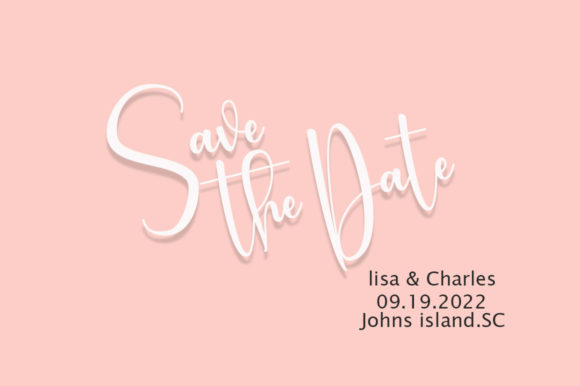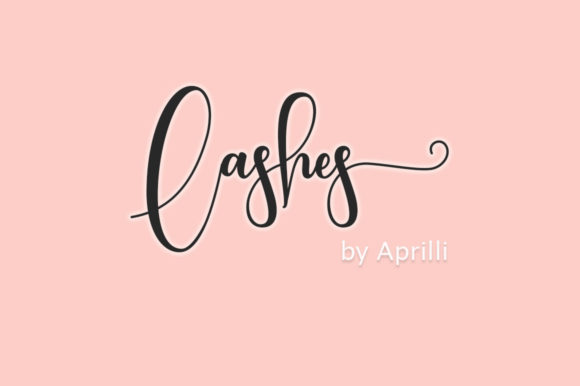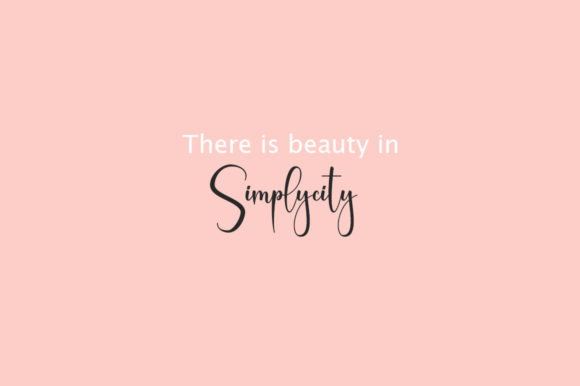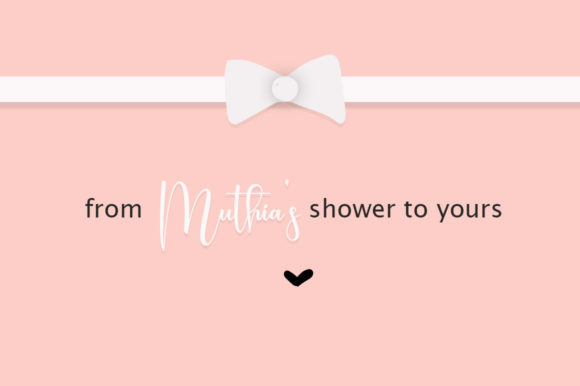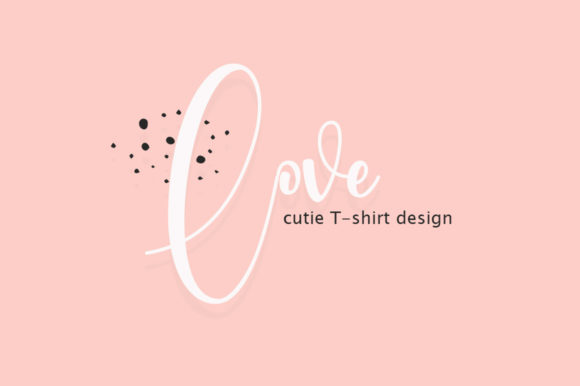
Introduction to Katty Patty Font
Have you ever been working on a creative project, pouring your heart and soul into it, and then suddenly, the perfect font comes along and makes everything fall into place? That’s exactly what happened to many designers who discovered the Katty Patty Font. This beautiful, thin-lettered script font is a game-changer for any design project, from elegant invitations to whimsical illustrations.
| 📌 Product Name | Katty Patty Font |
| 👤 Author | Fillo Graphic |
With its delicate and refined look, the Katty Patty Font is a valuable addition to any designer’s toolkit. Whether you’re working on a high-end branding project or a personal creative endeavor, this font is sure to elevate your design to the next level. And the best part? It’s available for free download, making it an accessible design resource for designers of all levels.
Key Features of Katty Patty Font
- Features a unique, playful design with bold lines and rounded edges
- Perfect for use in logos, branding, and other design elements
Honest Review: Katty Patty Font
I recently stumbled upon the Katty Patty Font, and I must say, it’s a unique addition to any design project. The font is perfect for those looking for a playful, quirky vibe in their creative endeavors. ✨
One of the standout features of this font is its high-quality design. The characters are well-crafted, and the transparent background makes it easy to incorporate into any design. Whether you’re working on a free download project or a commercial design, this font is sure to impress.
Here are some key features that make the Katty Patty Font a great design resource:
- High-quality design with detailed characters
- Perfect for creative projects requiring a playful vibe
However, I do have a few reservations. ⚠️ The font’s limited character set may not be suitable for extensive writing or formal projects. Additionally, the font’s quirky design may not appeal to everyone.
Overall, I think the Katty Patty Font is a great addition to any design library. Its unique design and high-quality construction make it a valuable resource for designers working on creative projects. Just be aware of its limitations, and use it judiciously.
Using in Creative Projects
Katty Patty Font is ideal for creative projects that require a playful and whimsical touch. Use it in Canva, Adobe Photoshop/Illustrator, or PowerPoint/Word to add a unique and eye-catching element to your designs.
The Katty Patty Font is commonly used in children’s book illustrations, party invitations, and other creative projects that require a playful and whimsical touch.
Alternatives to Katty Patty Font
Comic Sans MS is a popular, yet often criticized font that can add a playful touch to creative projects. It’s ideal for use in designs where a lighthearted, casual atmosphere is desired. When to use: advertisements, social media graphics, and informal documents. This font is often compared to Katty Patty Font due to its rounded edges and friendly feel, but it lacks the sophistication and elegance of Katty Patty Font.
Pacifico is a high-quality, elegant script font that’s perfect for adding a touch of sophistication to your designs. It features a transparent background, making it ideal for use on logos, invitations, and other creative projects. When to use: wedding invitations, luxury brands, and high-end marketing materials. Pacifico is a more refined and sophisticated alternative to Katty Patty Font, making it suitable for formal and professional designs.
Great Vibes is a modern, cursive font that’s perfect for adding a creative and artistic touch to your designs. It’s ideal for use in designs where a free-spirited, bohemian atmosphere is desired. When to use: music festivals, art galleries, and free-spirited marketing campaigns. Great Vibes is a more expressive and artistic alternative to Katty Patty Font, making it suitable for projects that require a unique and creative feel.
Crimson Text
Crimson Text is a high-quality, serif font that’s perfect for adding a touch of elegance and sophistication to your designs. It features a transparent background, making it ideal for use on logos, invitations, and other creative projects. When to use: formal documents, luxury brands, and high-end marketing materials. Crimson Text is a more refined and sophisticated